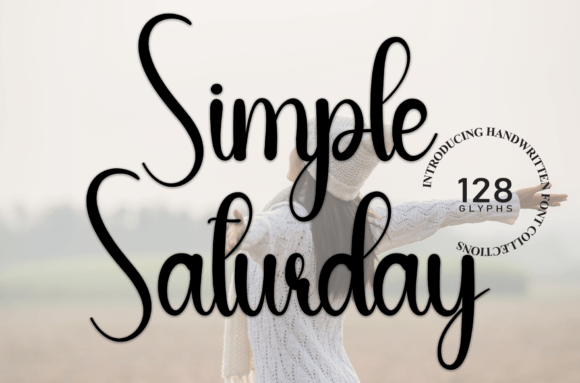
Immerse yourself in the charm of Simple Saturday, a script font family crafted with love by William Jhardoy. Its delicate curves and playful personality make it the perfect choice for infusing a touch of delight into your creative projects. Simple Saturday is not just a font; it's an expression of joy, love, and celebration, ready to bring a smile to your face and captivate the hearts of your audience.
Picture this: a beautifully designed wedding invitation, adorned with the flowing strokes of Simple Saturday. The letters dance across the page, creating an atmosphere of romance and elegance. Your guests will feel the warmth and joy radiating from every word, making your special day even more memorable.
Or imagine using Simple Saturday to create personalized cards for your loved ones. Each stroke of the pen, each carefully crafted letter, will convey your heartfelt message with a sincerity that no other font can match. Simple Saturday transforms ordinary words into heartfelt expressions, making your cards cherished keepsakes that will be treasured for years to come.
But Simple Saturday's charm extends beyond weddings and personal cards. Its versatility shines in a myriad of design projects, from whimsical posters to eye-catching social media graphics. With its ability to infuse any design with a touch of playfulness and charm, Simple Saturday is the perfect choice for businesses looking to create a lasting impression.